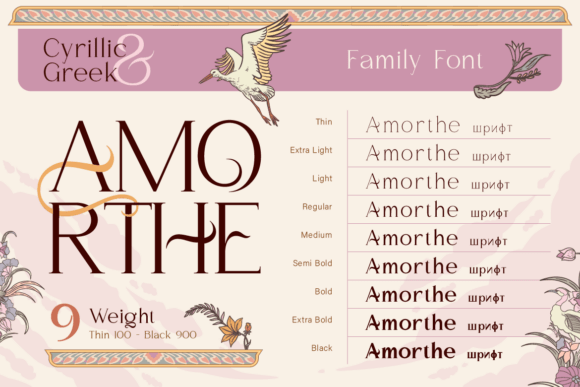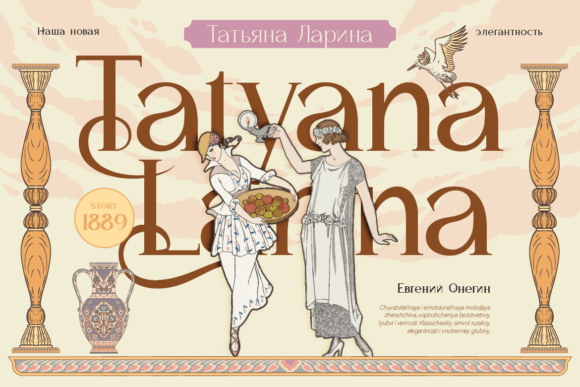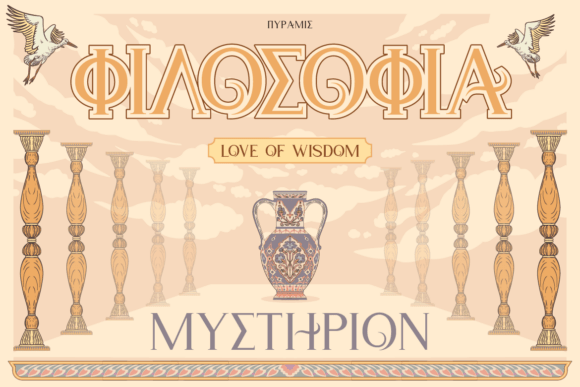
The Perfect Balance of Elegance and Versatility
Imagine you’re a graphic designer working on a high-end branding project, and you’re struggling to find the perfect font that conveys sophistication and charm. You’ve searched through countless typefaces, but none seem to capture the essence of luxury and refinement you’re aiming for. That’s where the Amorthe Regular Font comes in – a true masterpiece that embodies the perfect balance of timeless elegance and modern versatility.
This beautifully crafted font is designed to speak across languages, including Cyrillic, Greek, and more, making it a valuable asset for designers working on global projects. With its refined serifs and playful alternates, Amorthe Regular Font adapts seamlessly to various design applications, from headlines to body text, making it an ideal choice for luxury branding, editorial layouts, and high-end packaging.
Amorthe Regular Font Key Features
- Unique Characteristics: Amorthe Regular features a unique blend of modern and vintage elements, with subtle rounded edges and elegant lines, making it perfect for creative projects and designs.
- Language Support: Supports a wide range of languages, including Latin, Cyrillic, and Greek alphabets, making it a versatile choice for international projects.
- Weight and Style: Available in a single weight and style, Amorthe Regular, which is ideal for creating a cohesive and balanced design.
Amorthe Regular Font Review
I’ve had the chance to work with the Amorthe Regular Font, and I must say it’s a unique and intriguing addition to any design project. Here are some of its standout features: ✨
- High-quality rendering: The font has a crisp, clear appearance that makes it perfect for body text or headings.
- Neutral tone: Amorthe Regular has a neutral tone that makes it suitable for a wide range of designs, from modern to traditional.
- Limited language support: Amorthe Regular currently only supports a limited number of languages, which may be a concern for projects that require multilingual support.
- Not ideal for small text: While the font looks great at larger sizes, it may become difficult to read at smaller sizes due to its relatively high x-height.
Overall, I’d say the Amorthe Regular Font is a solid addition to any design toolkit. While it may have some limitations, its unique features and high-quality rendering make it a great choice for many projects.
Amorthe Regular Font is ideal for use in designs that require a clean and modern aesthetic. Some common use cases include:
- Logo design
- Business cards
- Brochures
- Editorials
For optimal results, use Amorthe Regular Font in conjunction with high-quality images and a clear color scheme.
Alternatives to Amorthe Regular Font
Lato Regular
Lato Regular is a sans-serif font that is highly legible and suitable for body text. It has a clean and modern design, making it a great choice for digital products and web design. It is more condensed than Amorthe Regular Font, which makes it ideal for smaller screen sizes.
Comparison: Lato Regular has a more geometric and modern look compared to Amorthe Regular Font, which has a more rounded and classic feel.
Merriweather Regular
Merriweather Regular is a classic serif font that is perfect for formal and elegant designs. It has a timeless and sophisticated look, making it a great choice for print materials and business cards. It is more formal than Amorthe Regular Font, which has a more casual and approachable feel.
Comparison: Merriweather Regular has a more traditional and formal look compared to Amorthe Regular Font, which has a more modern and relaxed feel.